Book of the Month (June 2025) : “Creating Characters: Nine Typeface Designers”
Today, I would like to introduce “Creating Characters: Nine Typeface Designers,” written by Yuki Akari.
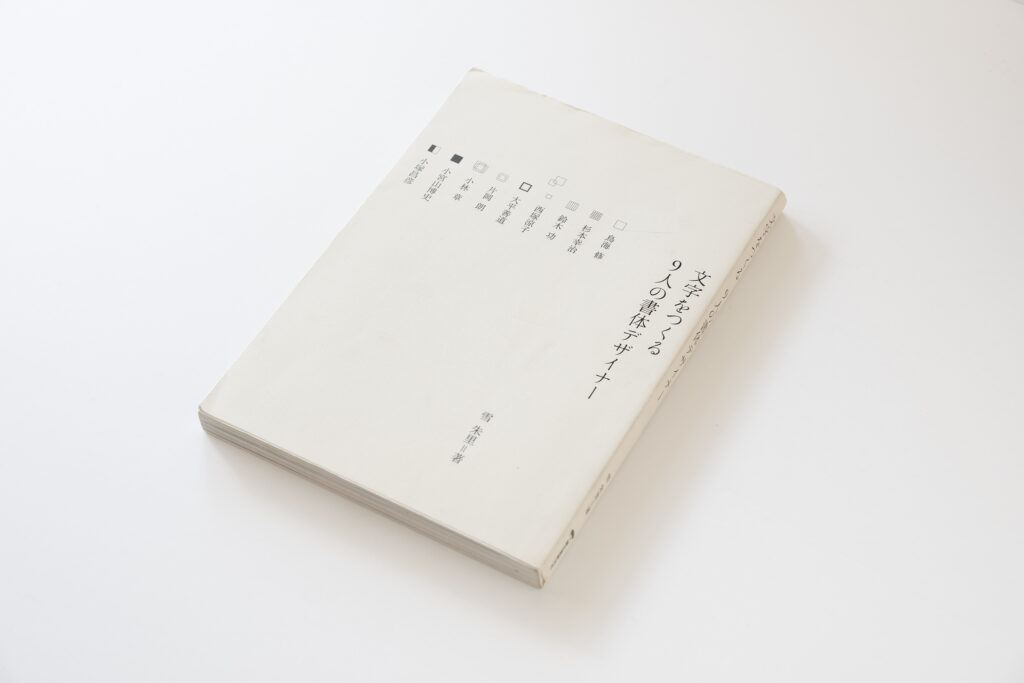
In a structure of interviews, making typefaces, and typesetting samples, this book introduces nine typeface designers. As the designers introduced are of a wide variety of generations, the creation of characters in each generation is discussed, from metal type to typesetting and digital font. The reader can learn about creating characters from each perspective of the nine typeface designers. Also, a lot of photographs of workplace and creation scenes, documents and sketches, etc. are included, making it easy to imagine the nature of typeface design work.
I first encountered this book when I was just becoming interested in typeface design. At the time, I knew the names of the typefaces introduced, but I first learned who created them and how by reading this book. I remember getting more interested in typeface design, and I strongly felt that each character was characteristic of its designer. In the interviews, their backgrounds prior to becoming typeface designers and thoughts on creation are also given. There are many words of encouragement I can find when I re-read the book now. The book is recommended to anybody who is interested in typeface design, as well as anybody who handles characters. The book is filled with points interest regarding typeface.
“Creating Characters: Nine Typeface Designers”
Author: Yuki Akari
Publisher: Seibundo-shinkosha